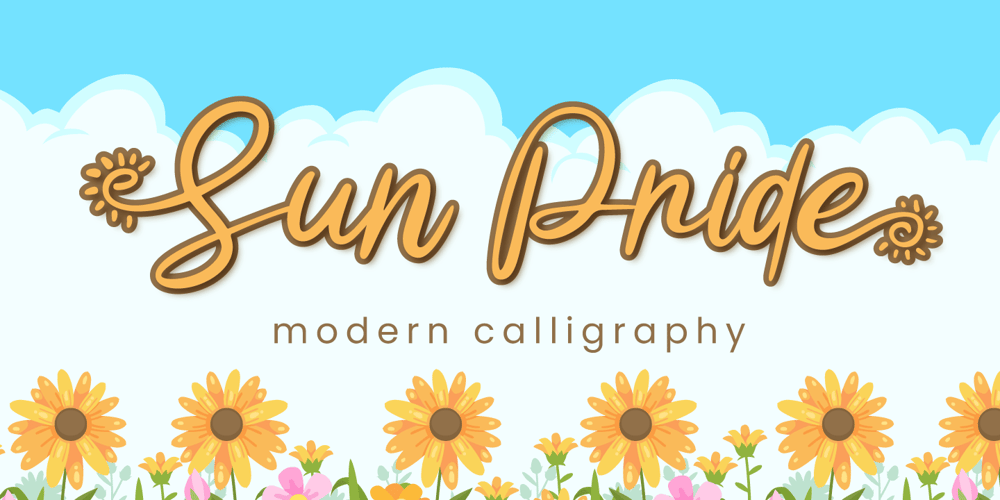
Sun Pride Font Family was designed by Fadli Ramadhan Iskandar and published by Attype Studio. Sun Pride contains 1 styles and family package options. Sun Pride is script font with beginning and ending swash of sun flower and is suitable for any summer event. Sun Pride is perfect for branding, logo, invitation, stationery, social media post, product packaging, merchandise, blog design, game titles, cute style design, Book/Cover Title and more.Includes Multilingual Support for Afrikaans, Albanian, Catalan, Danish, Dutch, English, Estonian, Finnish, French, German, Icelandic, Italian, Norwegian, Portuguese, Spanish, Swedish, Zulu.Hope you enjoy with our font!Attype Studio